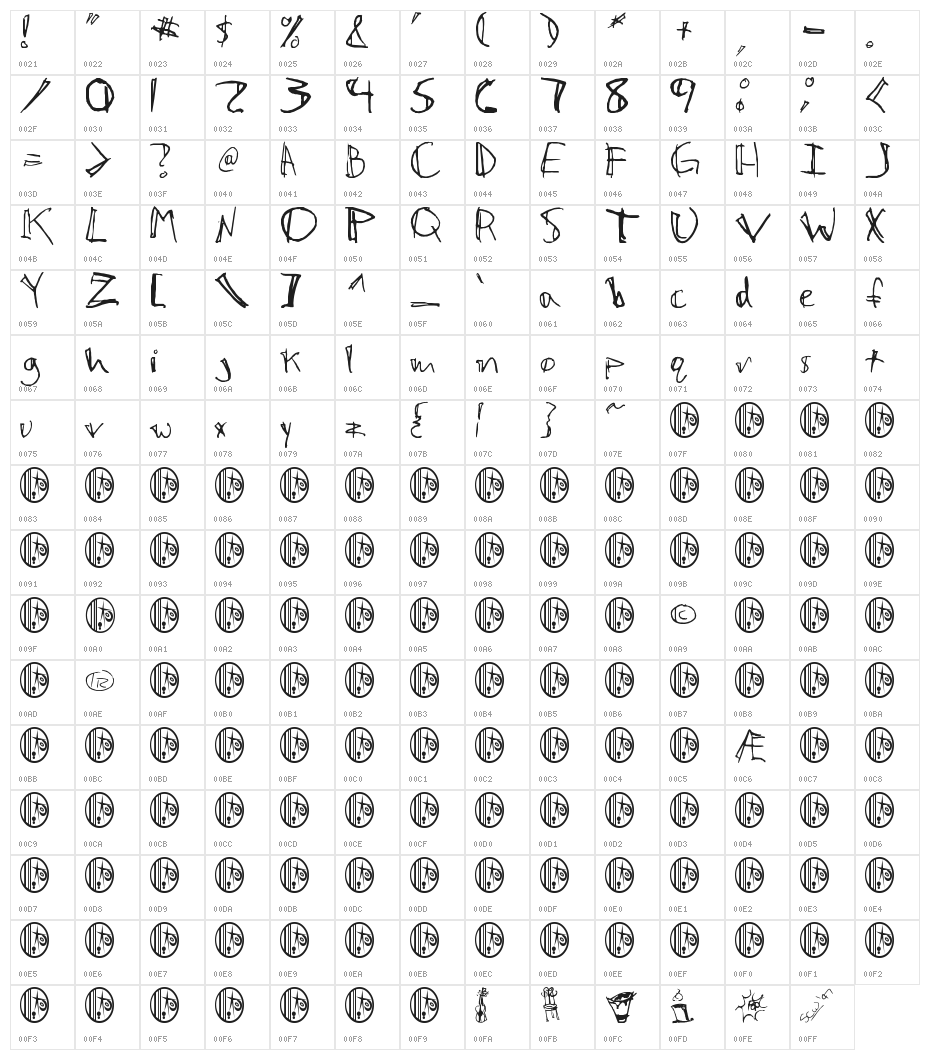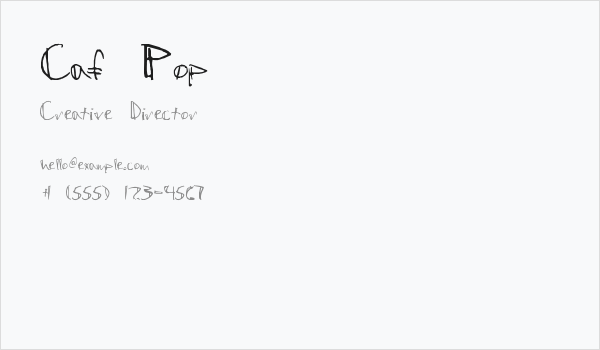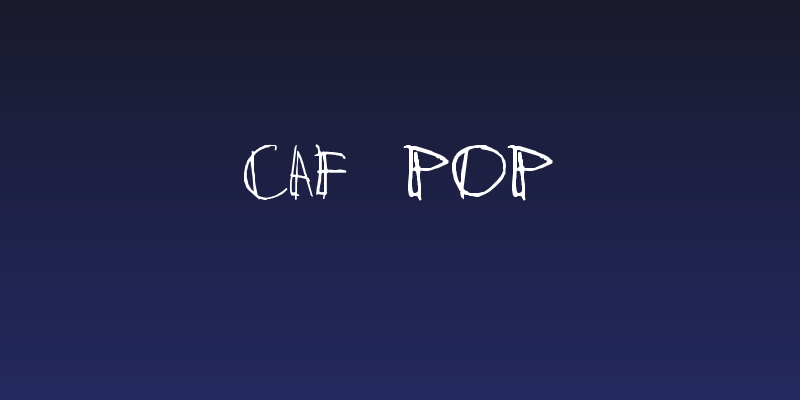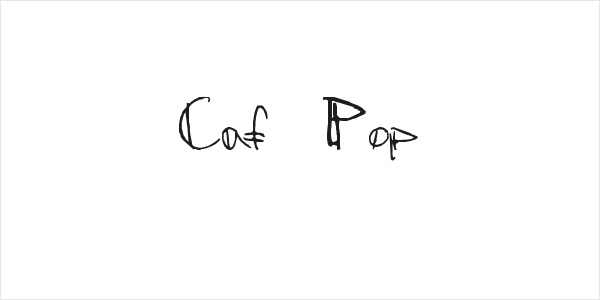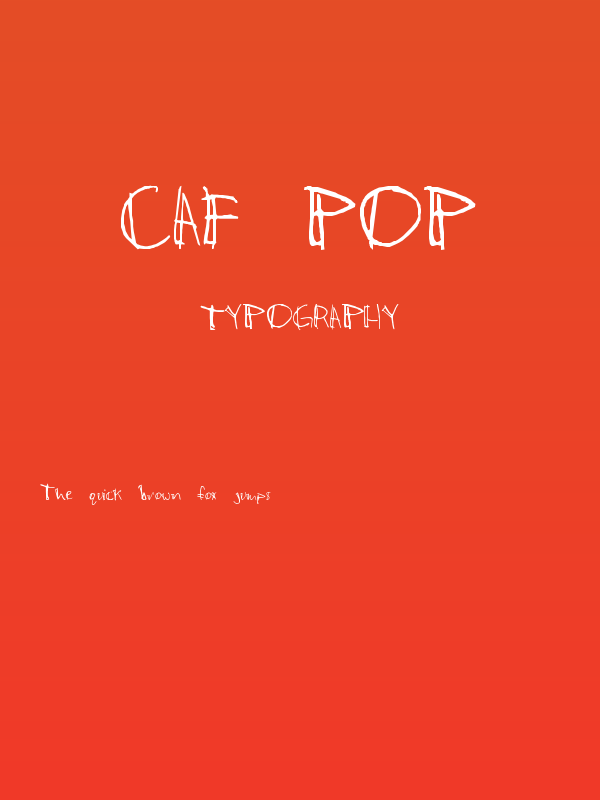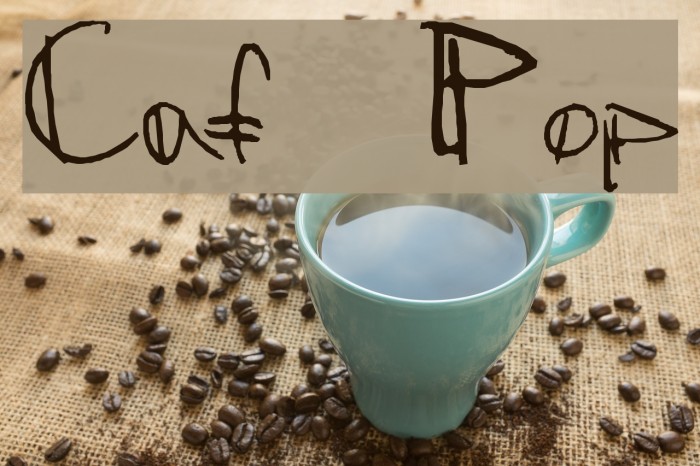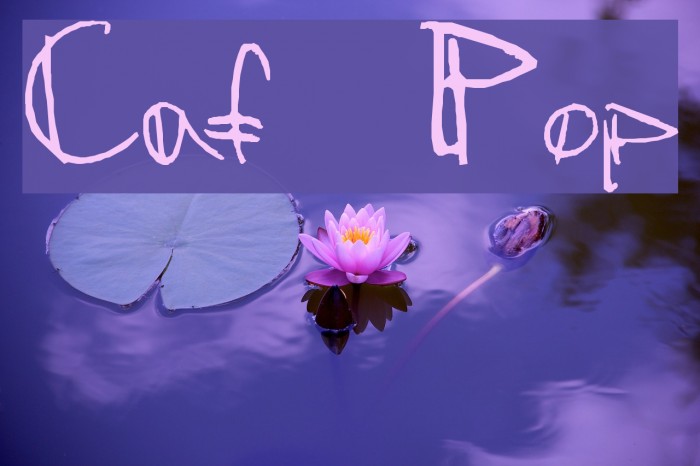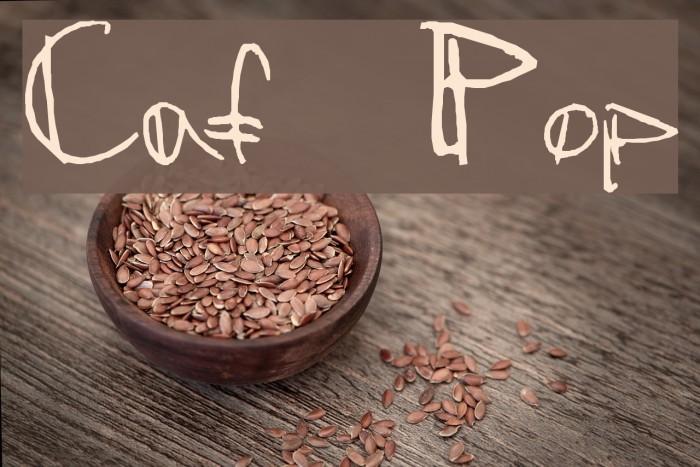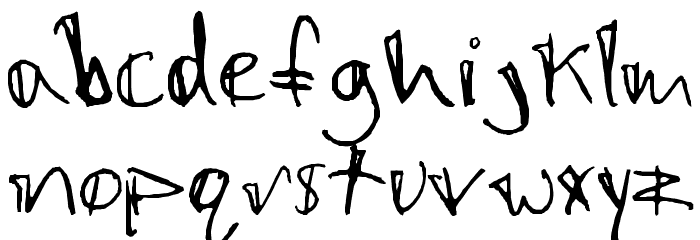
Caf Pop Font
Caf Pop Description
This font features a playful and energetic handwritten style, characterized by its irregular and dynamic strokes. The letters exhibit a casual, almost whimsical appearance, with varying line thickness that adds to its lively personality. The uppercase and lowercase letters maintain a consistent style, while the numbers and special characters follow suit with the same quirky charm. The overall design is informal and artistic, making it suitable for projects that require a personal touch or a creative flair.